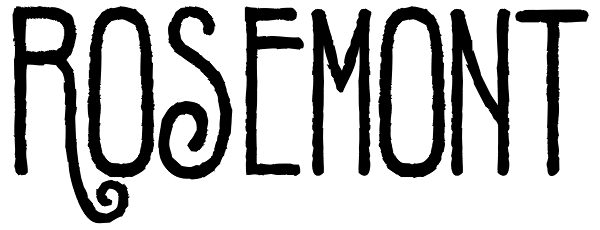
Rosemont
Rosemont is a playful new font which hovers on the bordeline between Arts and Crafts style and Art Nouveau style. It has the narrowness of Art Nouveau fonts like Adresack, Spoonbill and Coloma, with the curls and unique character forms of Art...